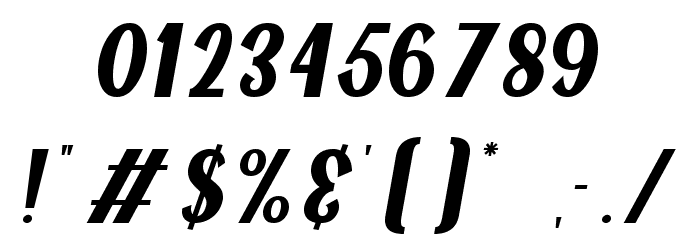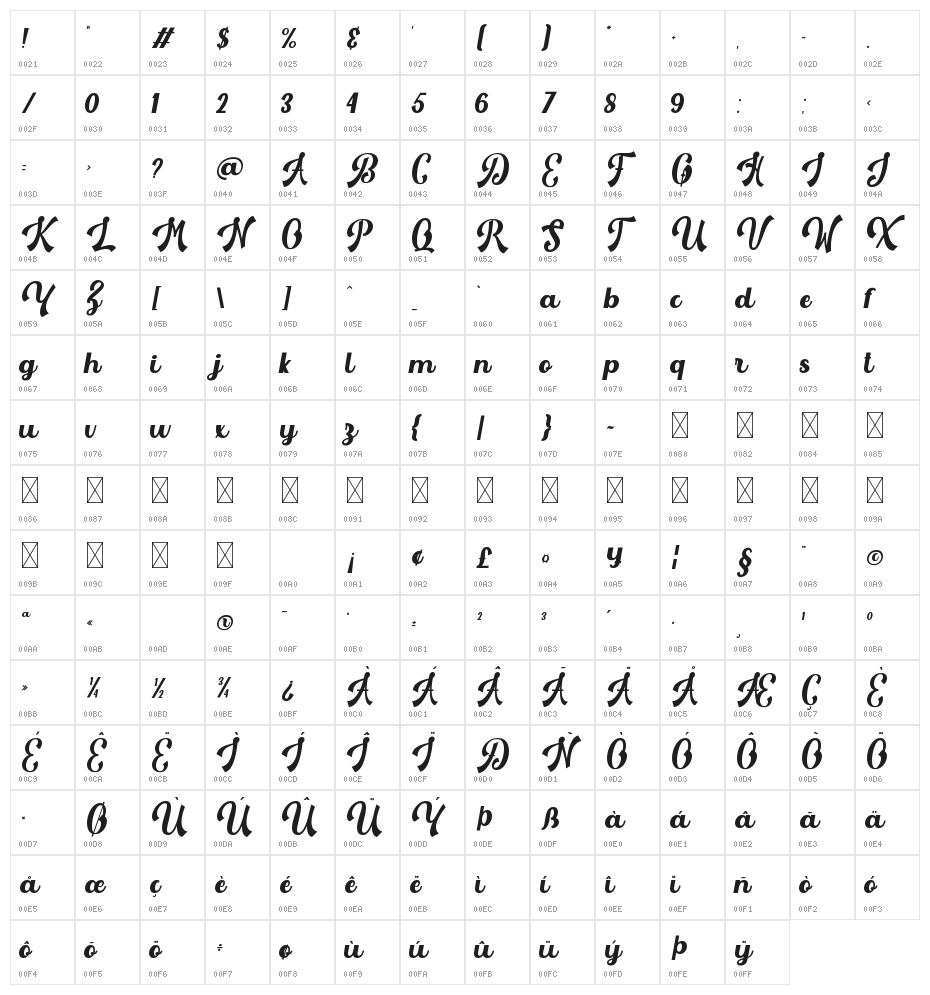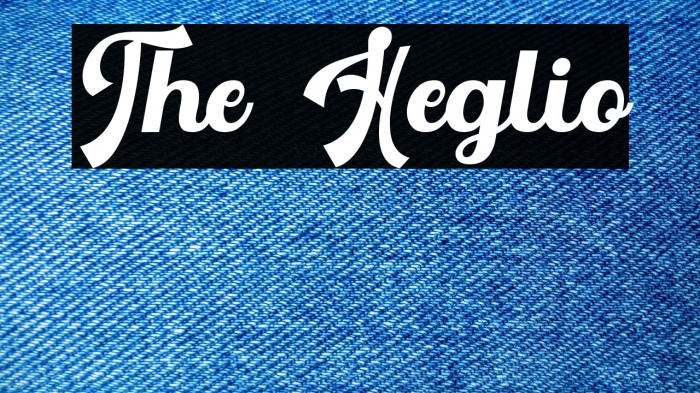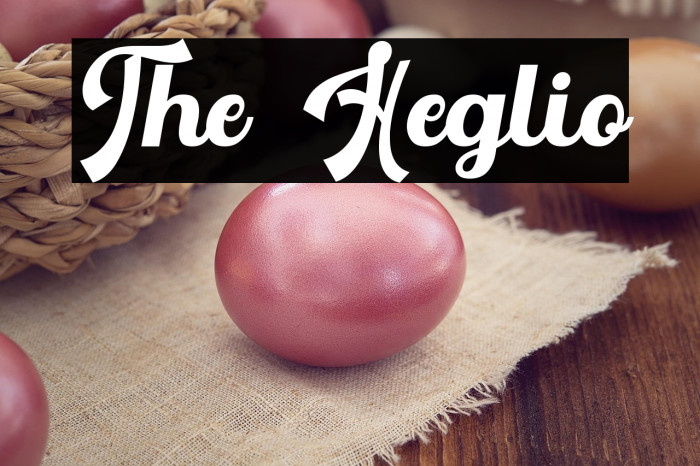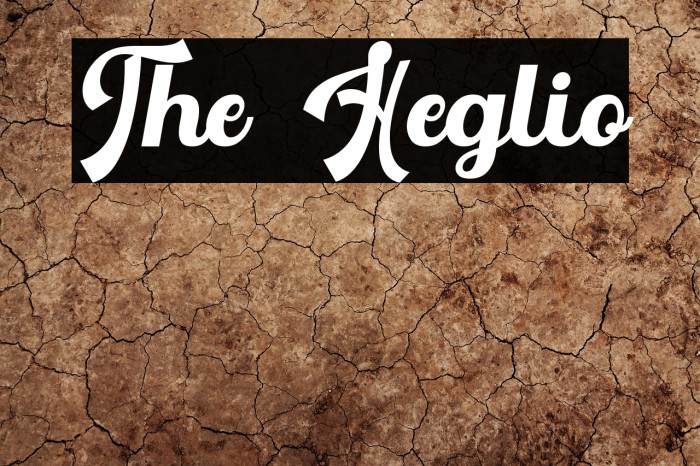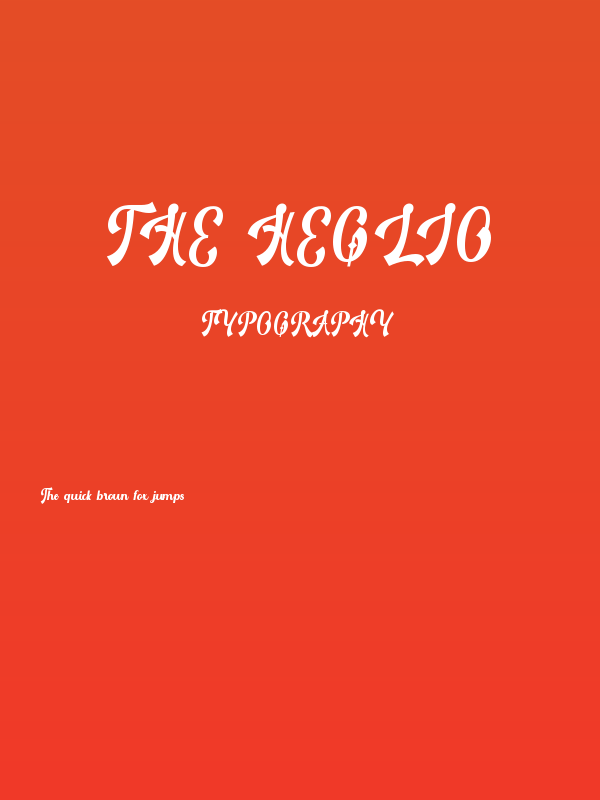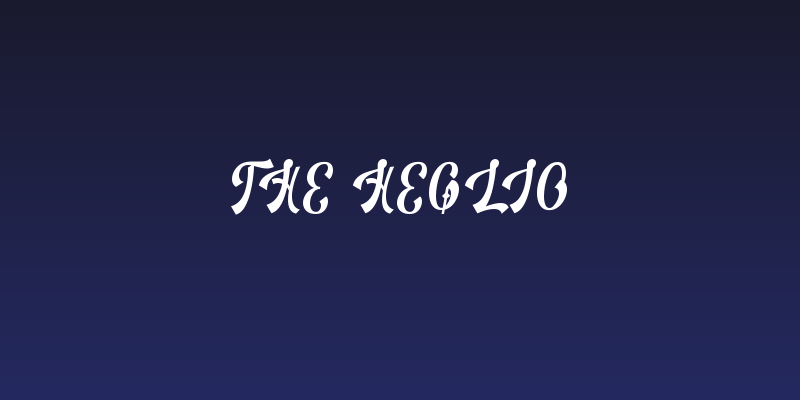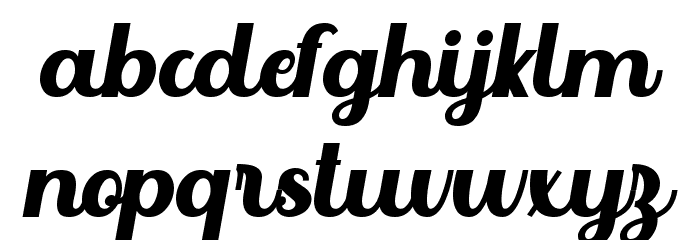
The Heglio Font
The Heglio Description
This font features a bold and expressive script style, characterized by its flowing, cursive letterforms. The uppercase letters are ornate, with dramatic flourishes that give a sense of elegance and sophistication. The lowercase letters maintain a consistent flow, with smooth curves and rounded edges that enhance readability despite the decorative nature. The numerals are bold and clear, matching the overall style of the alphabet. Special characters are well-integrated, maintaining the script's aesthetic. This font is ideal for projects that require a touch of elegance and flair, such as invitations, branding, and decorative headlines.
| Proposed Projects | Ideal for wedding invitations, luxury branding, decorative headlines, and artistic projects. |